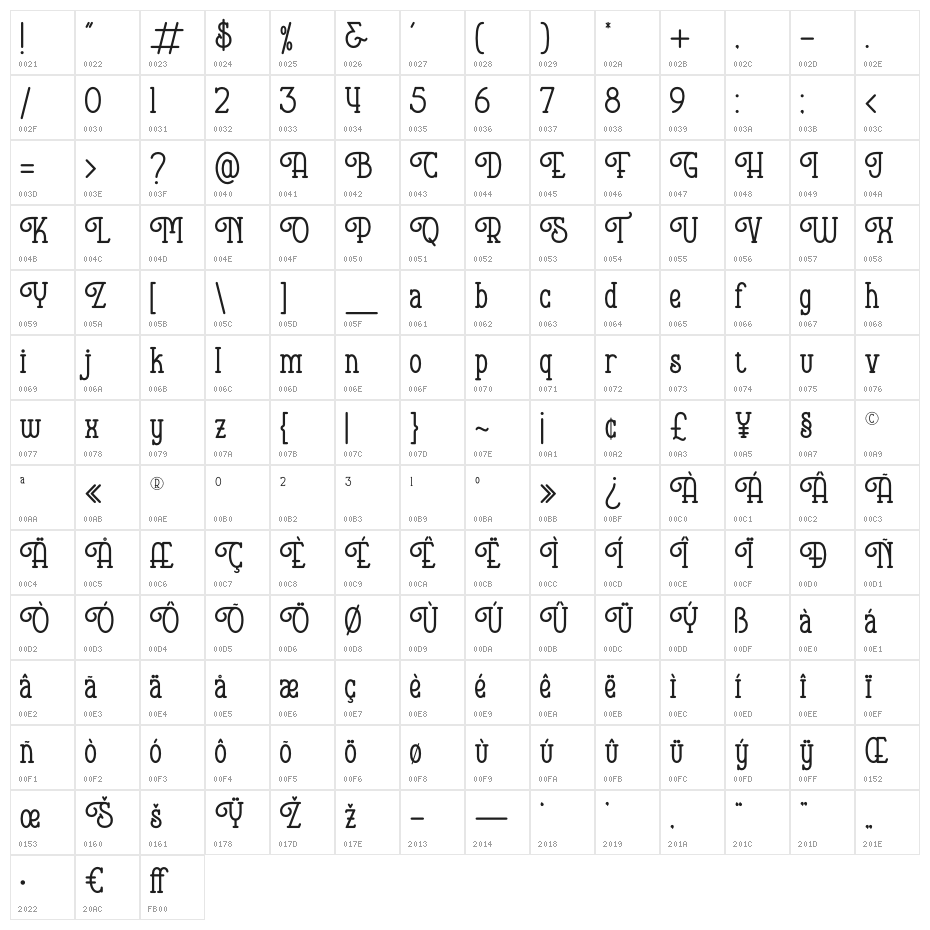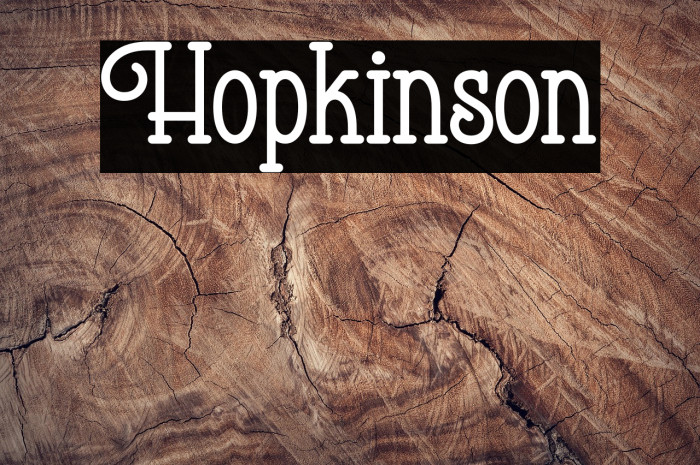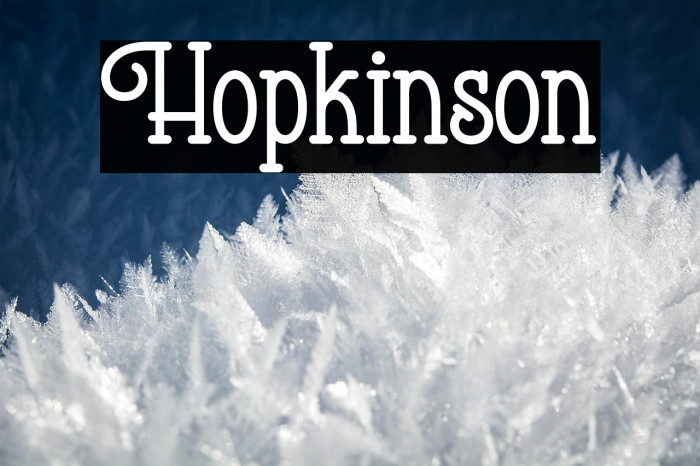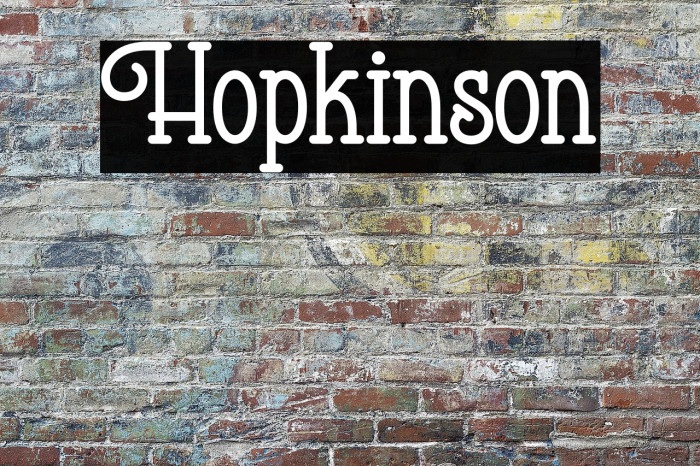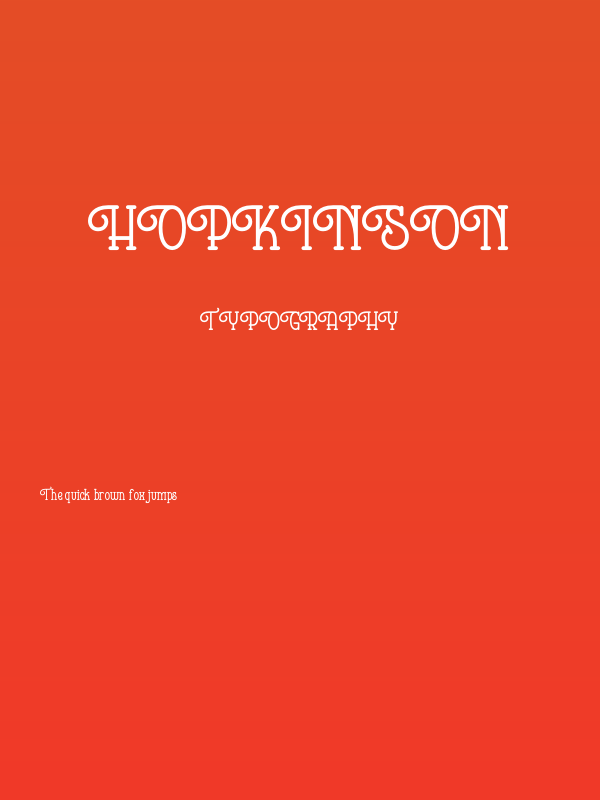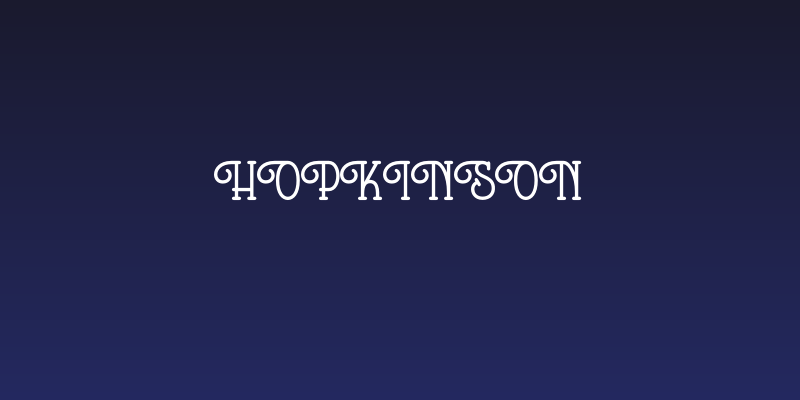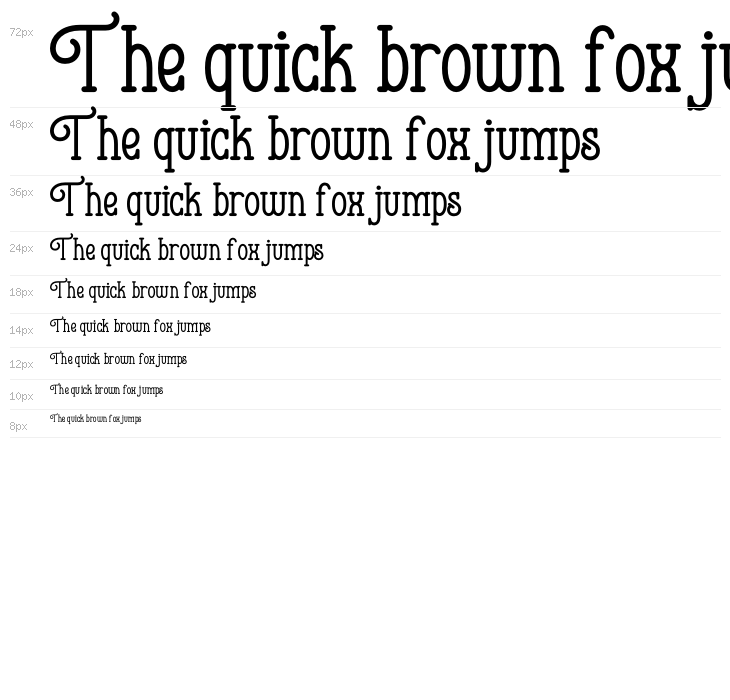
Hopkinson Font
Hopkinson Description
This font features a unique blend of classic and decorative elements, characterized by its distinctively curled serifs and rounded edges. The uppercase letters exhibit a playful yet sophisticated style, with loops and swirls that add a touch of elegance. The lowercase letters maintain a consistent design, offering readability while retaining the decorative flair. Numbers are bold and clear, ensuring legibility. Special characters are crafted with the same attention to detail, making them suitable for various design needs. Overall, this font combines traditional serif elements with a modern twist, making it versatile for both formal and creative applications.
| Proposed Projects | Ideal for branding, invitations, headlines, and any project requiring a touch of elegance and creativity. |